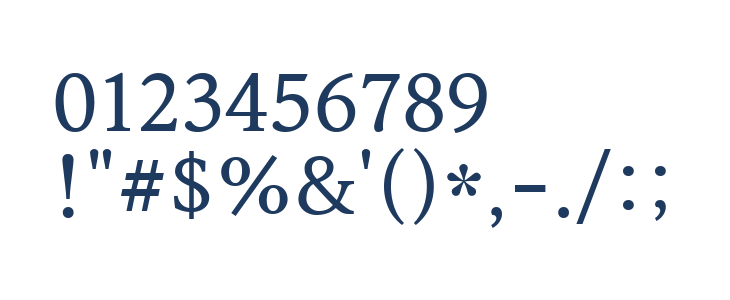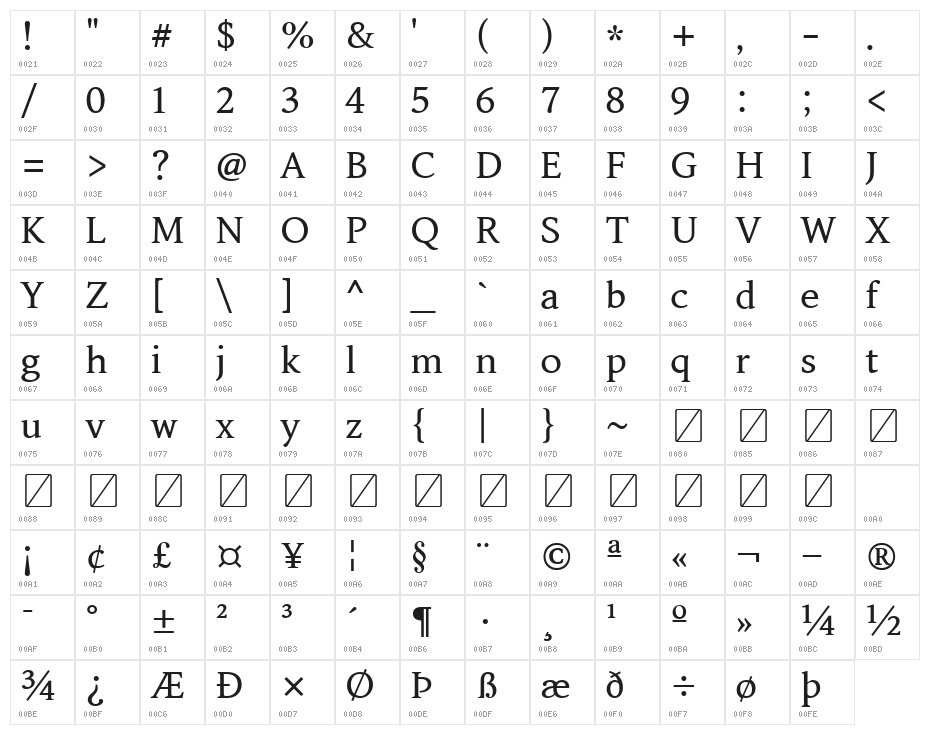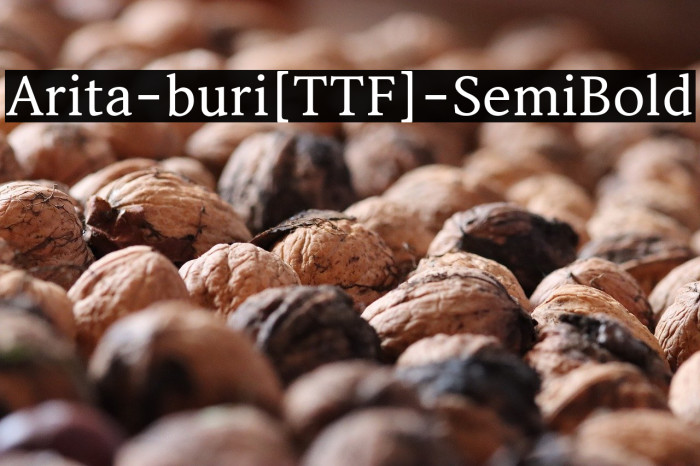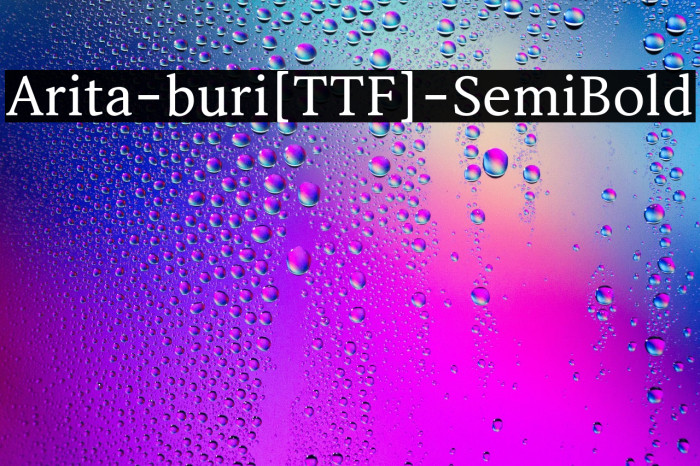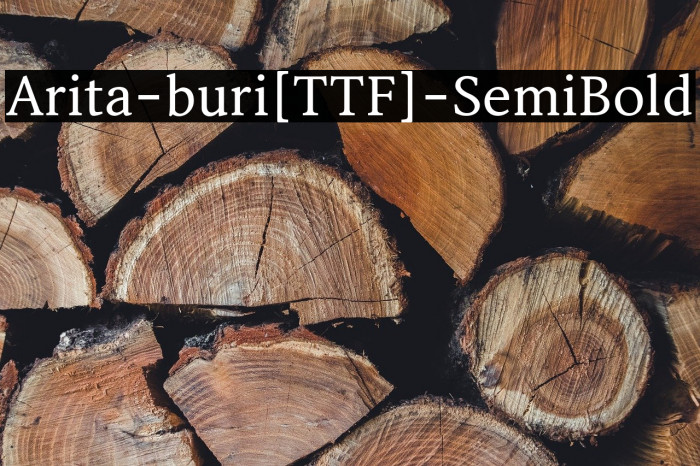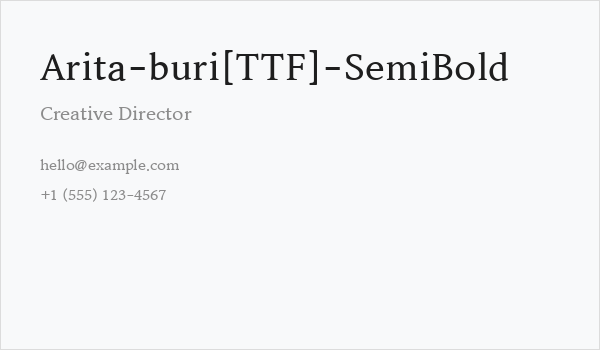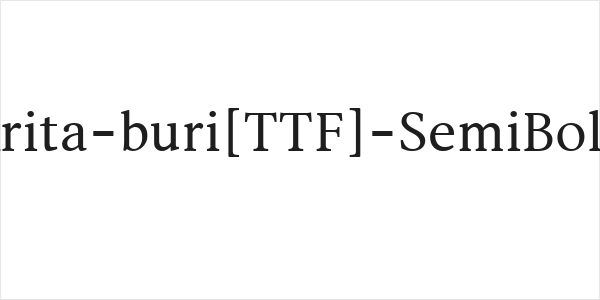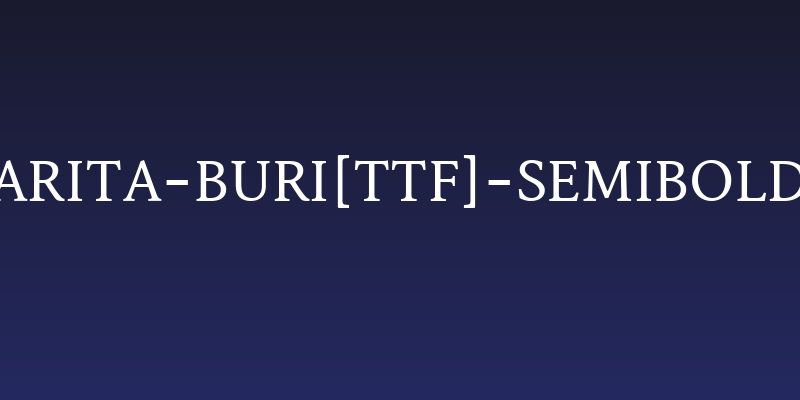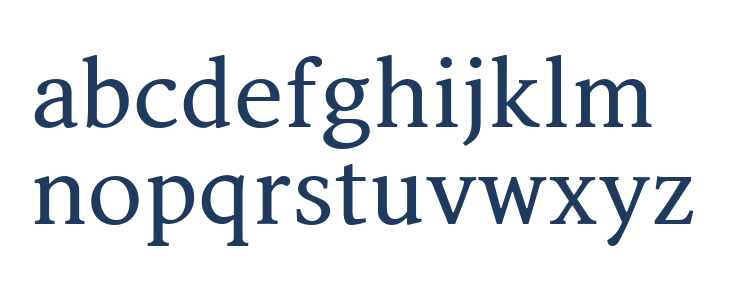
Arita-buri[TTF]-SemiBold Font
Arita-buri[TTF]-SemiBold Description
This font exhibits a classic serif style with a semi-bold weight, providing a strong yet elegant appearance. The characters are well-defined with moderate contrast between thick and thin strokes, enhancing readability. The serifs are pronounced, adding a traditional touch to the overall design. The spacing between characters is balanced, ensuring clarity and legibility across various sizes. This font is versatile, suitable for both digital and print media, and can effectively convey a sense of professionalism and sophistication.